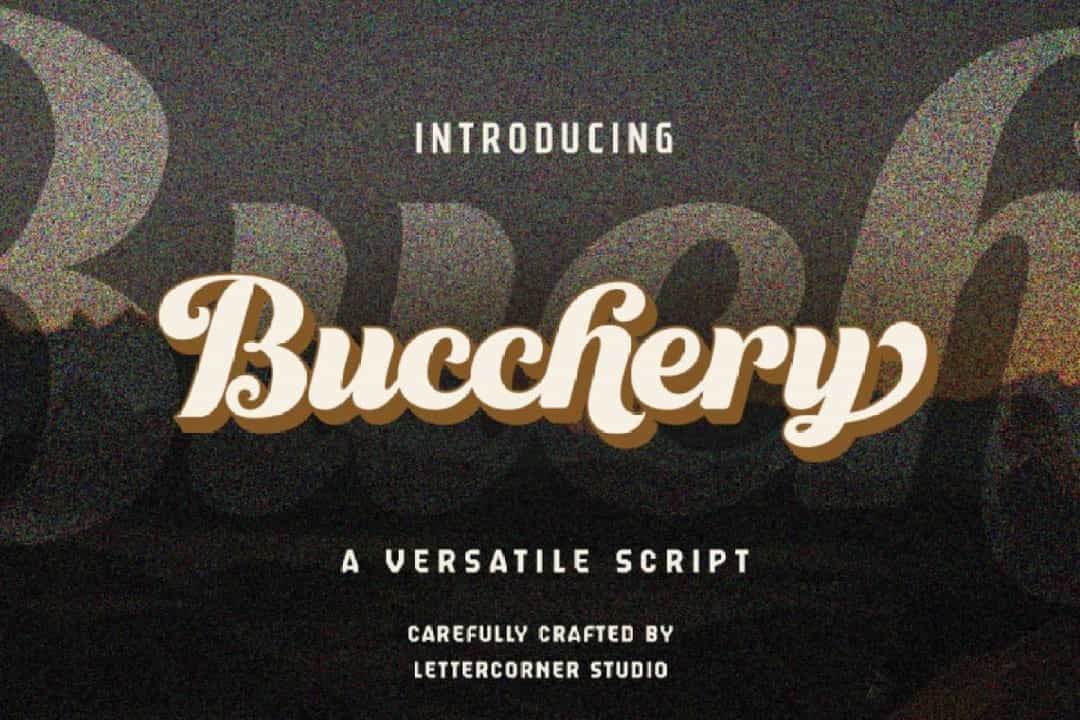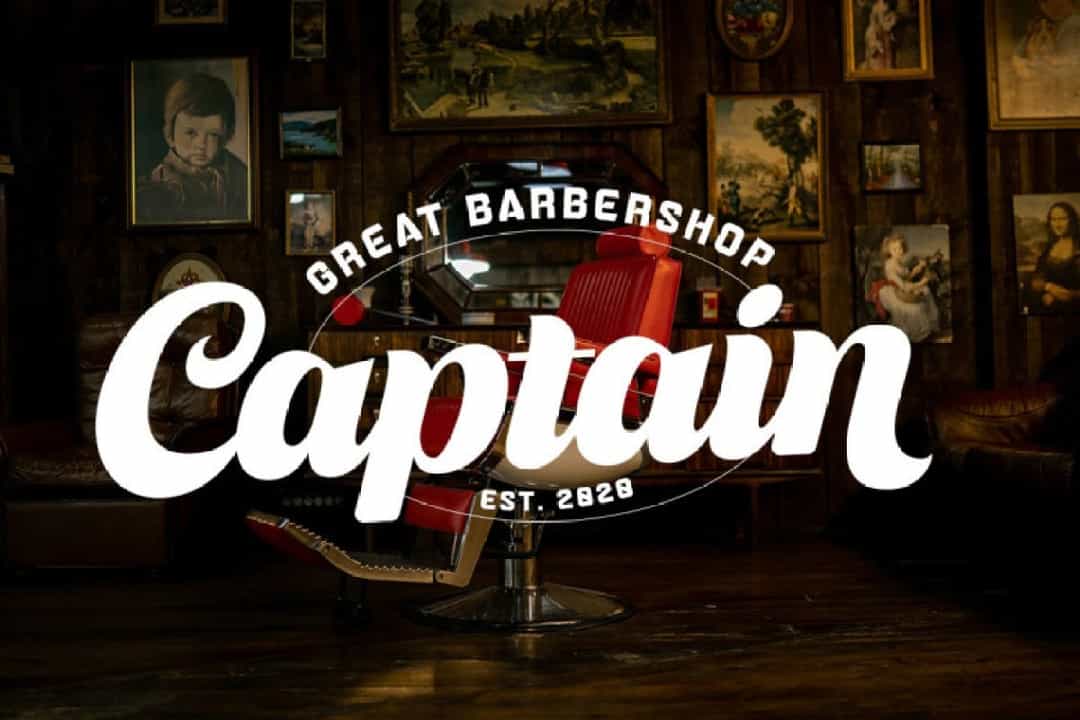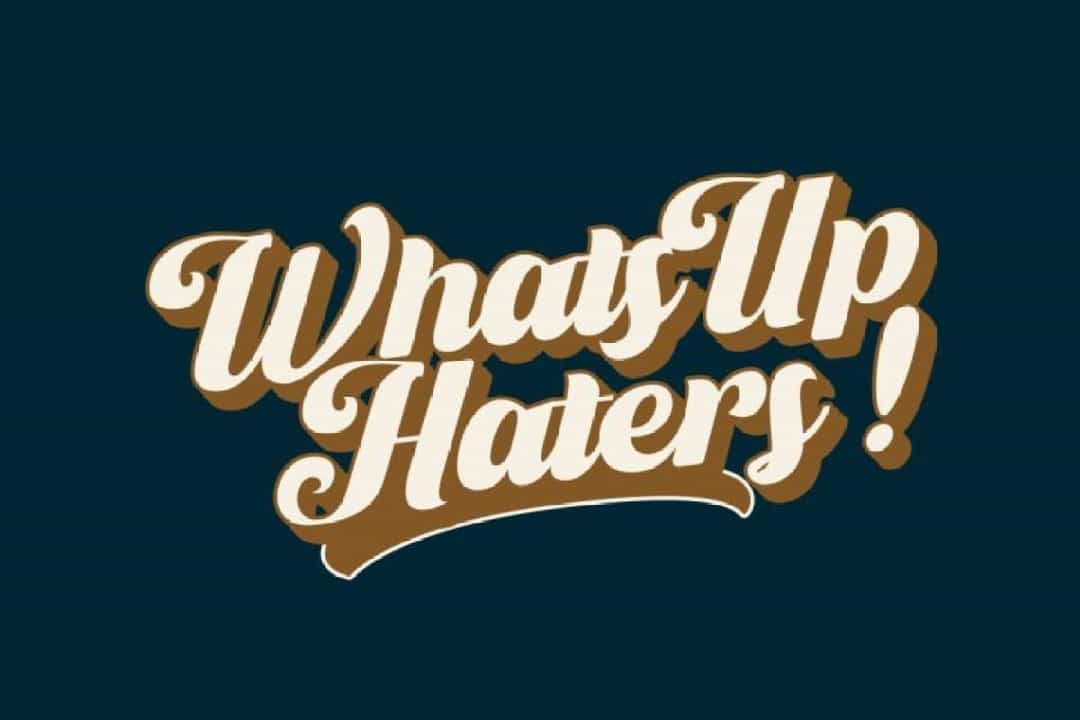
Bucchery script font is a striking blend of contemporary elegance and design that effortlessly fits into both classic and modern settings. Exuding timeless sophistication, its design meets designers’ demand for designs that are sophisticated yet adaptable.